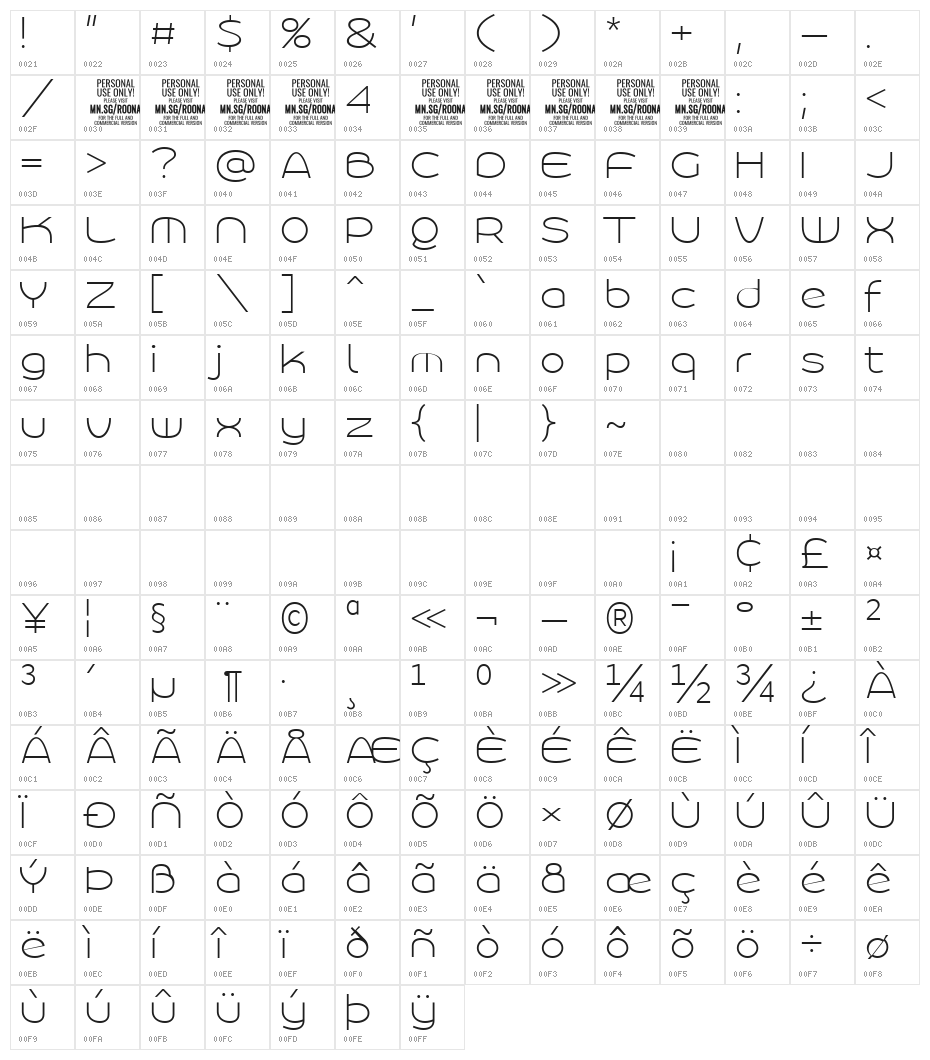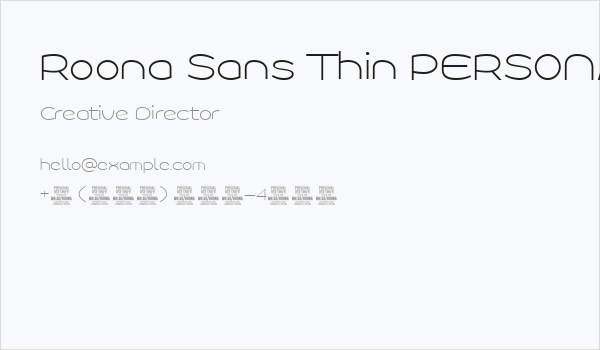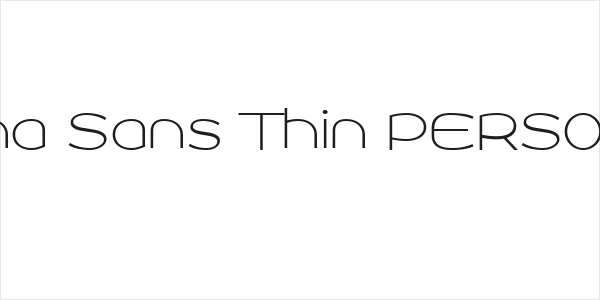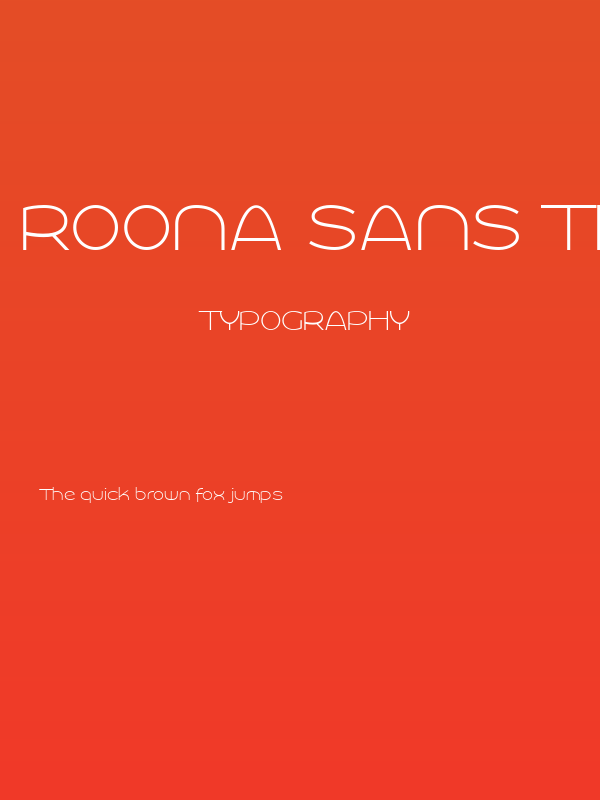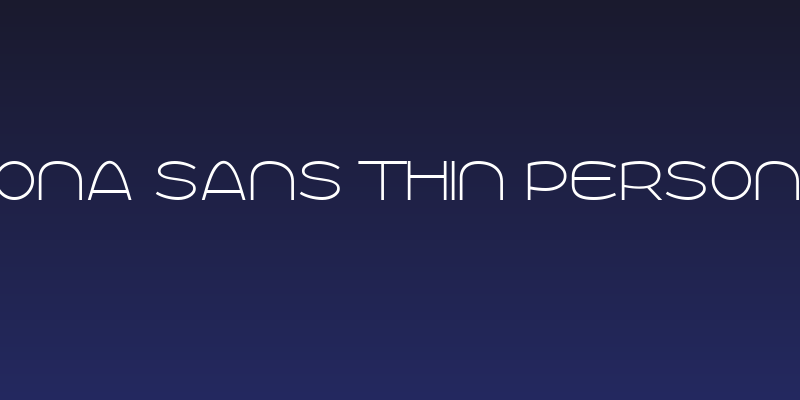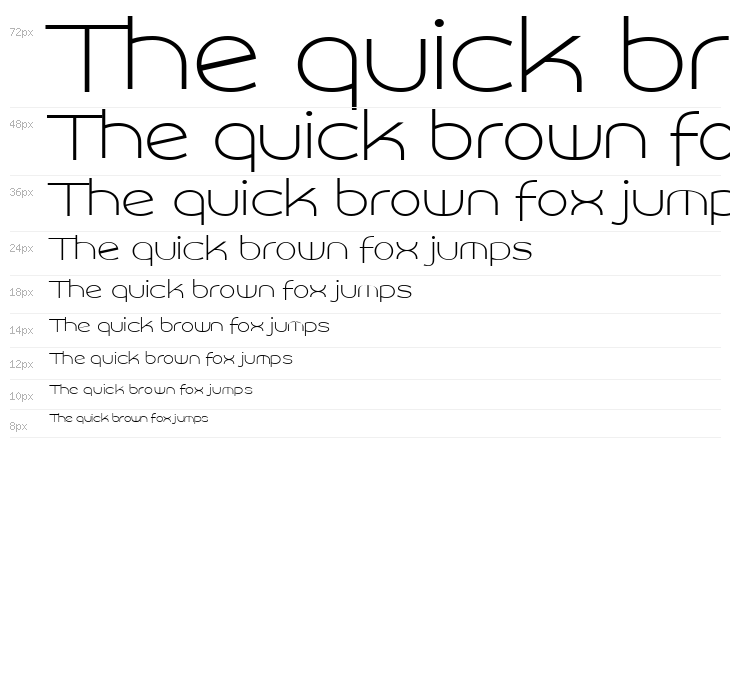
Roona Sans Thin PERSONAL Font
Roona Sans Thin PERSONAL Description
This font features a clean, minimalist design with a modern aesthetic. The characters are crafted with a thin, uniform stroke that gives it a sleek and elegant appearance. The uppercase and lowercase letters maintain a consistent geometric form, emphasizing simplicity and clarity. The numerals and special characters are designed to match the overall style, ensuring a cohesive look across all text. This font's thin weight and open character spacing make it ideal for projects that require a contemporary and airy feel.
| Proposed Projects | Ideal for modern branding, minimalist posters, sleek website headers, and contemporary editorial design. |